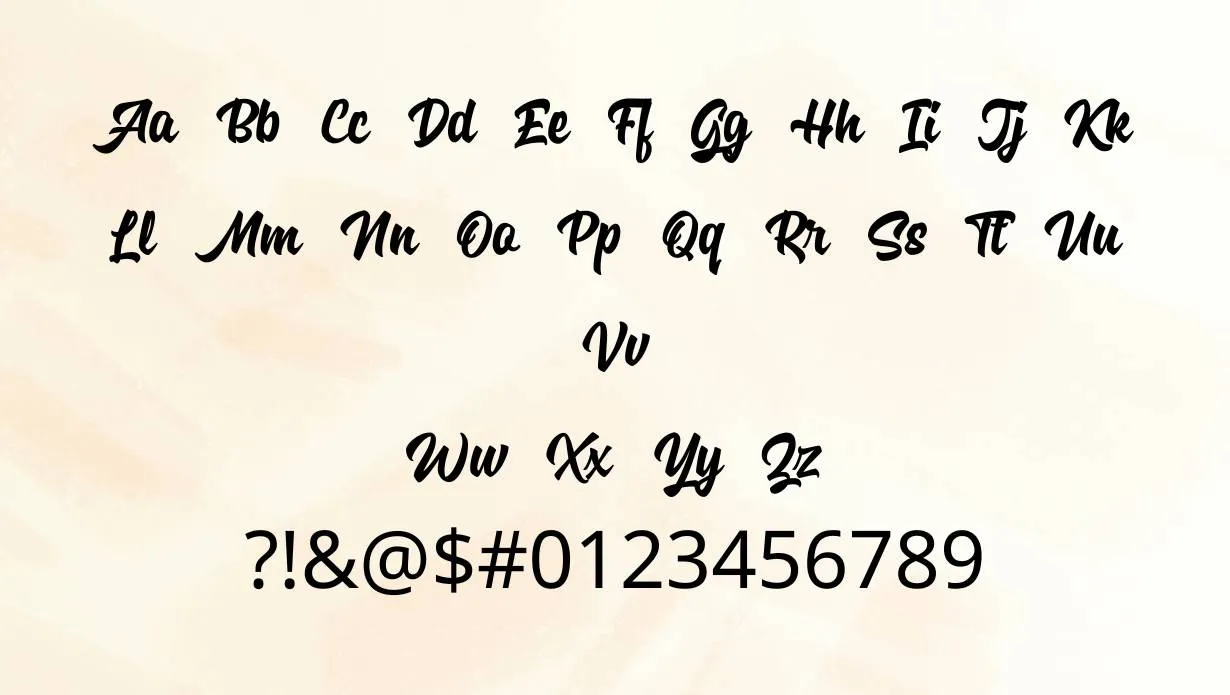
Specta Retro Script Font embraces the nostalgia of the past with its retro script.
It’s a fantastic choice for vintage and throwback projects, such as retro-themed parties, antique store signage, or old-fashioned product labels.
| Name | Specta Retro Script Font |
| Designer | identitype.co |